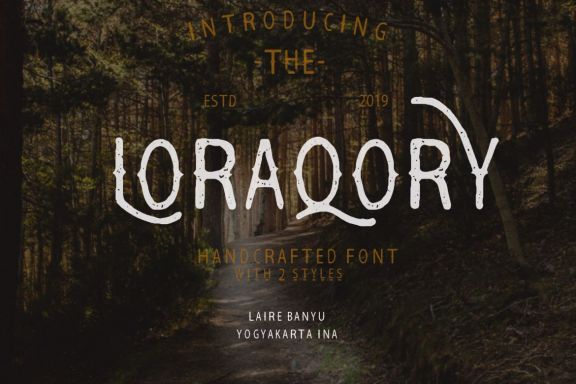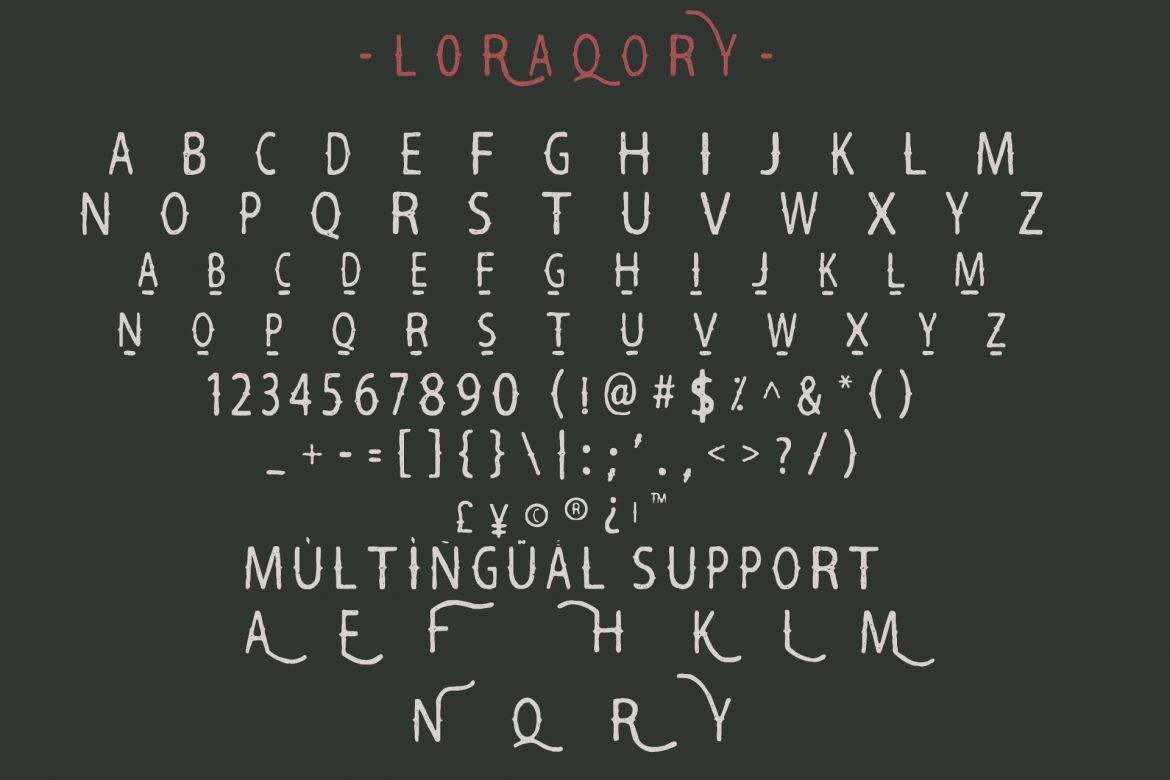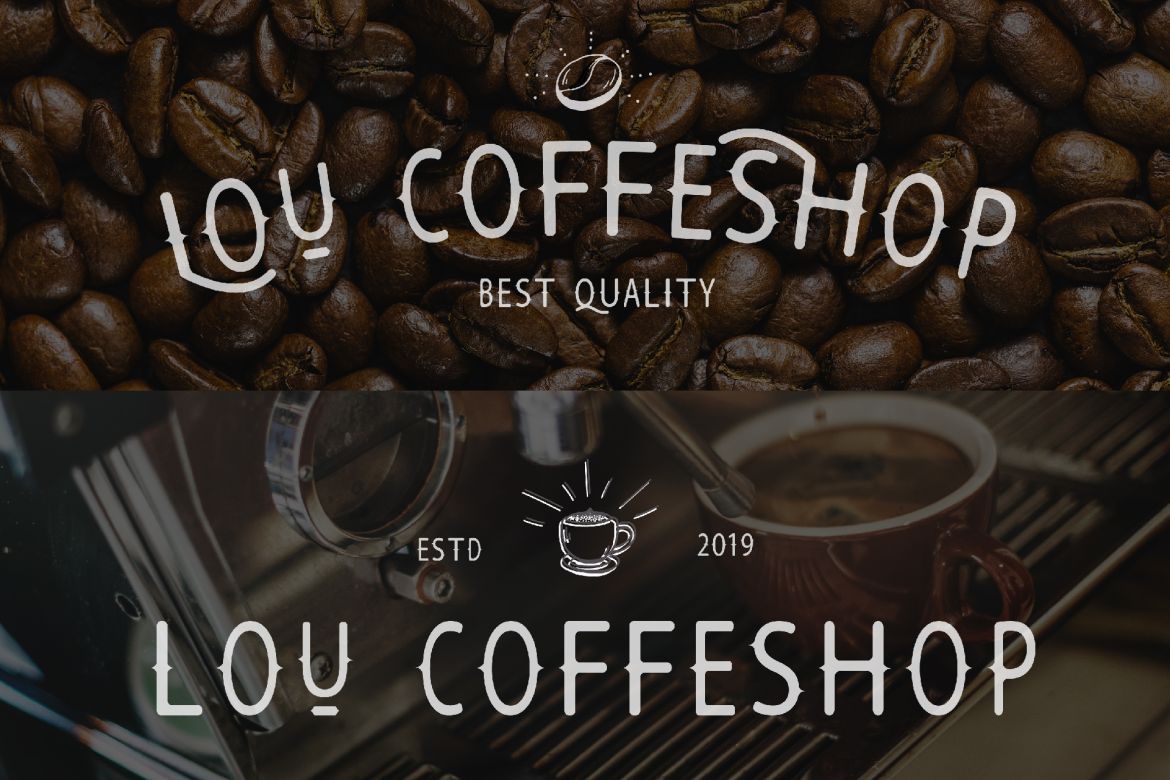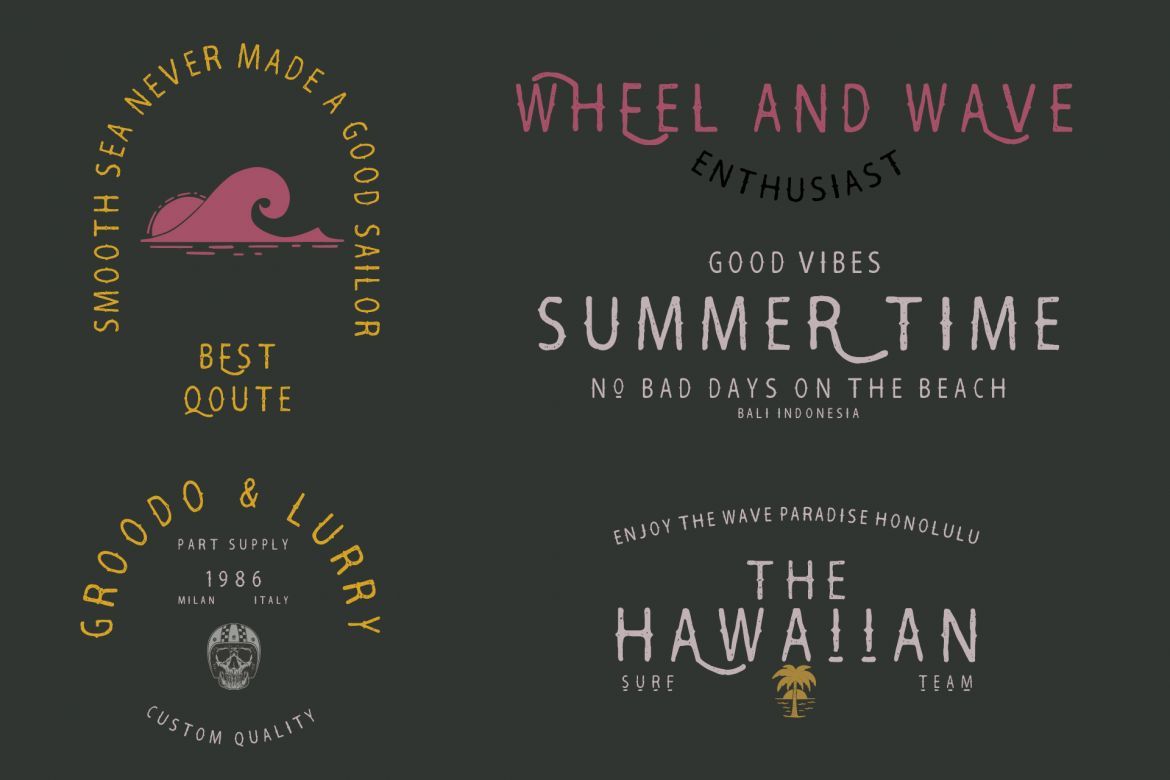
LORAQORY Font
LORAQORY is a Vintage type font, can be used for a variety of your retro design needs, suitable for logo, clothing or other design
• very suitable for your desian needs who want to give an old-fashioned touch to the design you want
• we give a vintage touch to this font